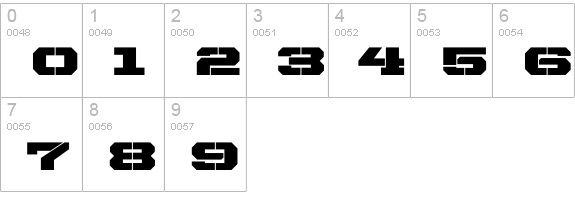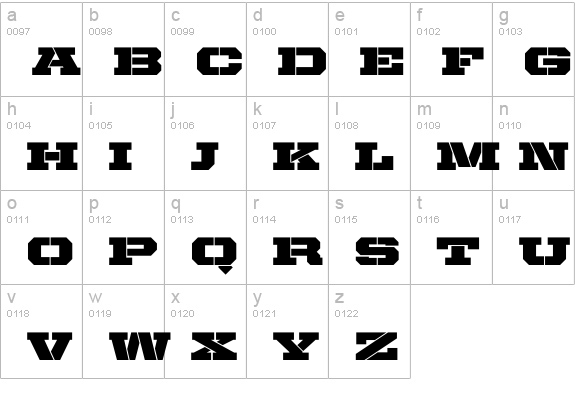
United Serif Ext Stencil Font Details
United Serif Ext Stencil font is a unique and eye-catching typeface that combines the elegance of a serif font with the bold and modern look of a stencil design. This font is perfect for adding a touch of sophistication and creativity to any project. With its clean and crisp lines, United Serif Ext Stencil font is highly legible and versatile, making it suitable for a wide range of applications. Whether you need to create attention-grabbing headlines, elegant logos, or stylish branding materials, this font has got you covered. What makes United Serif Ext Stencil font even more appealing is the fact that it is free. Yes, you read that right! You can freely download this font at FontsMarket.com, a reputable website known for its vast collection of high-quality fonts. Now you can add a touch of professional design to your projects without breaking the bank. The United Serif Ext Stencil font is available in different weights and styles, allowing you to customize your designs and achieve the desired effect. Whether you prefer a bold and impactful look or a more subtle and delicate one, this font has the versatility to meet your needs. Don't miss the opportunity to enhance your designs with the United Serif Ext Stencil font. Download it for free at FontsMarket.com and unleash your creativity.